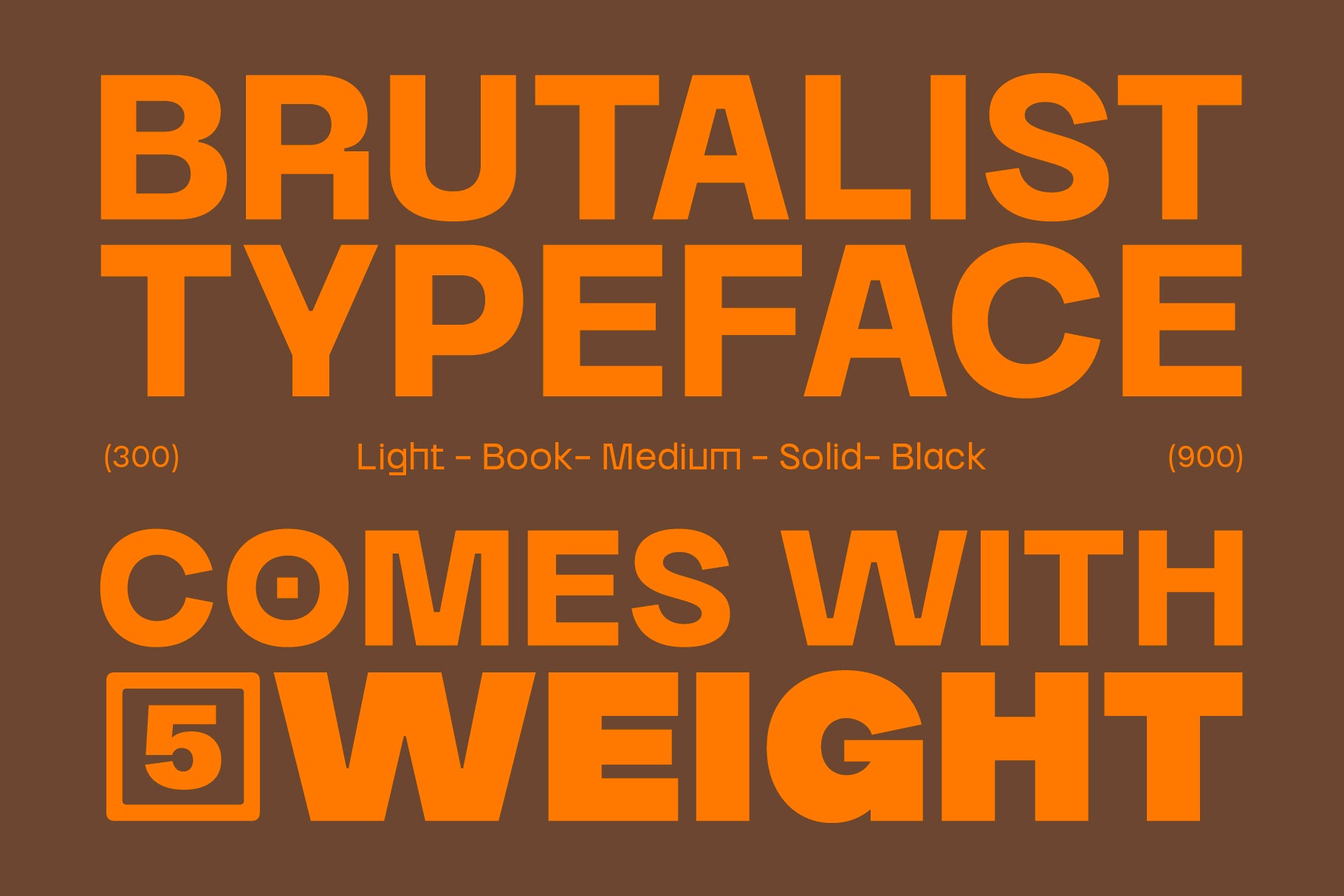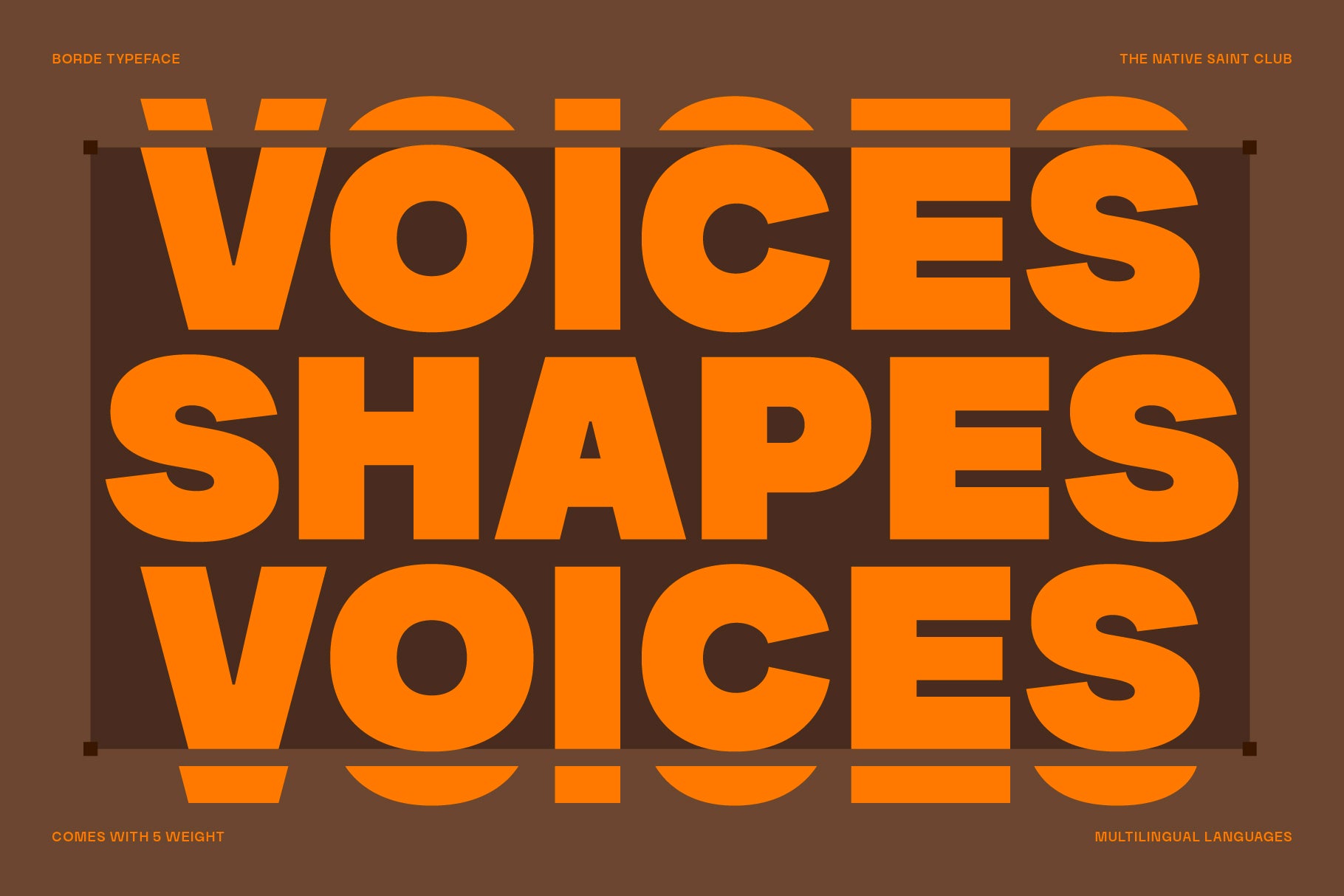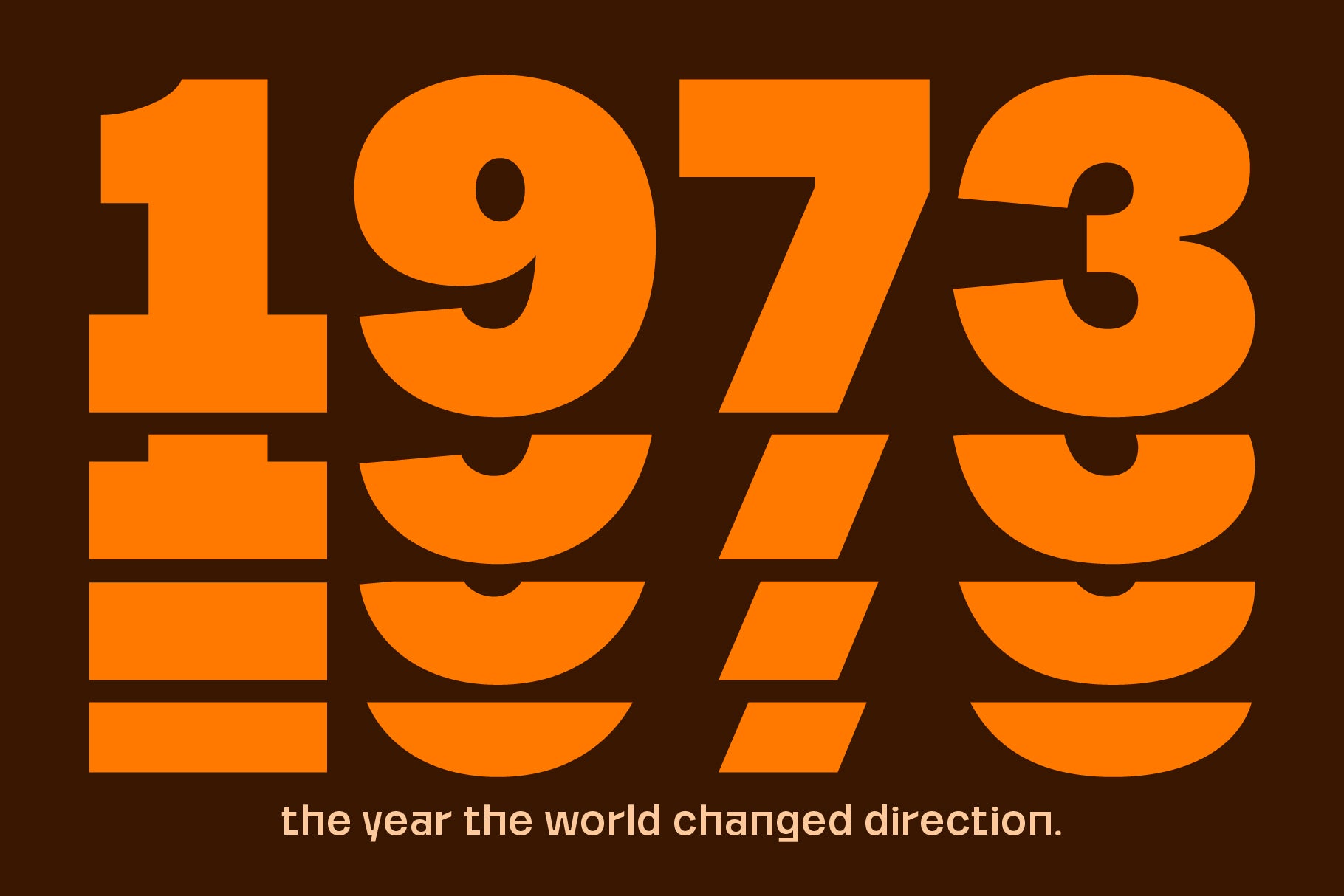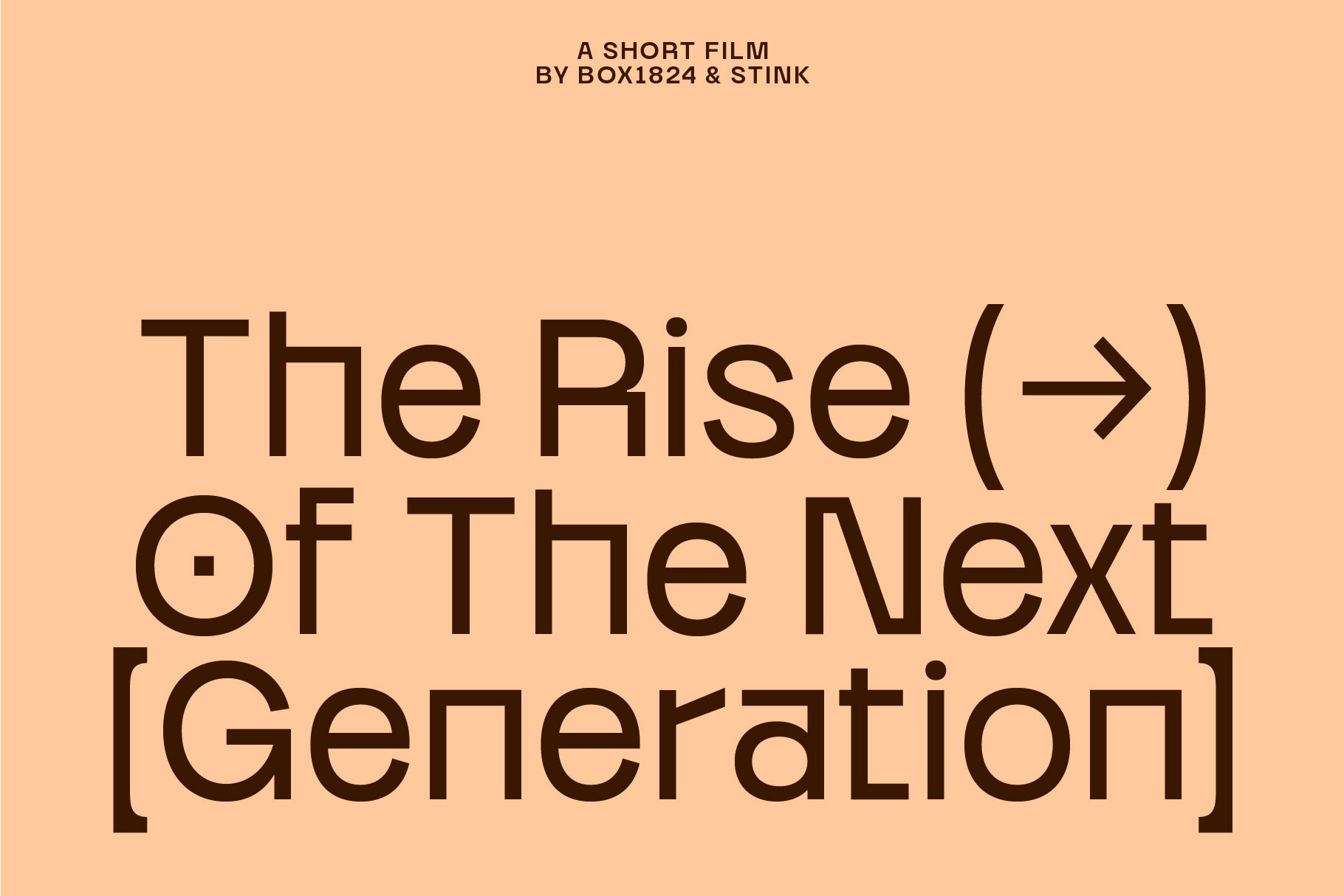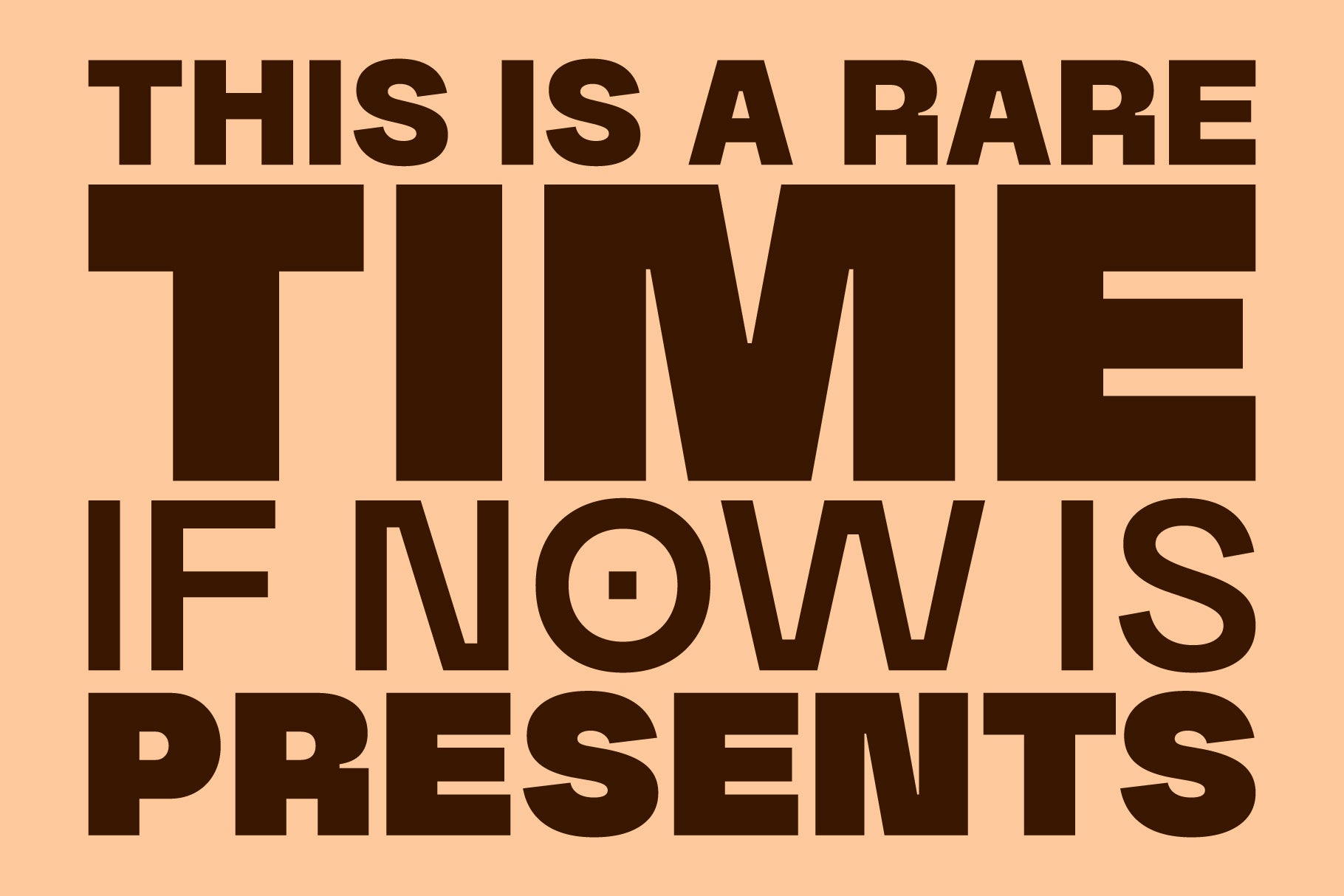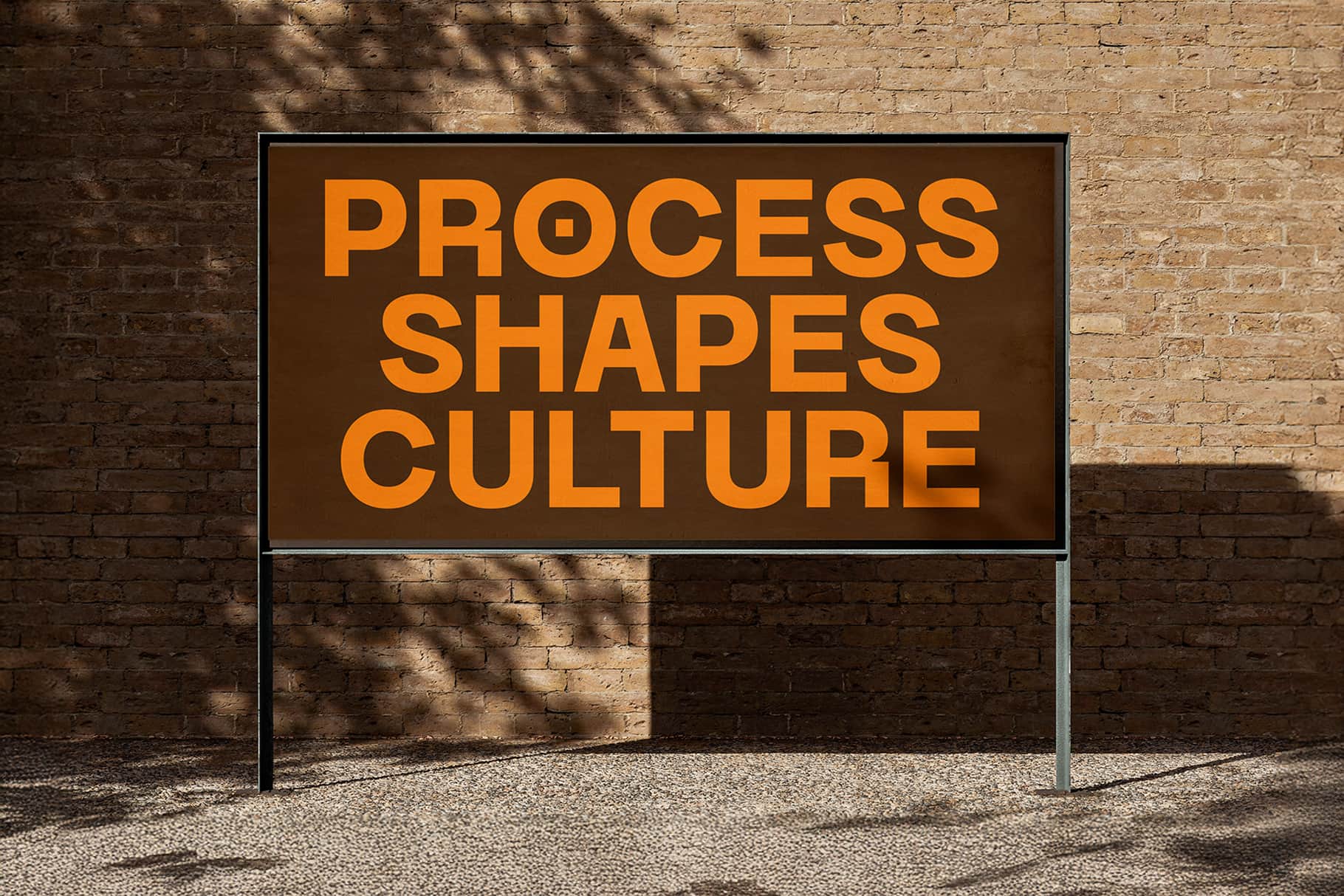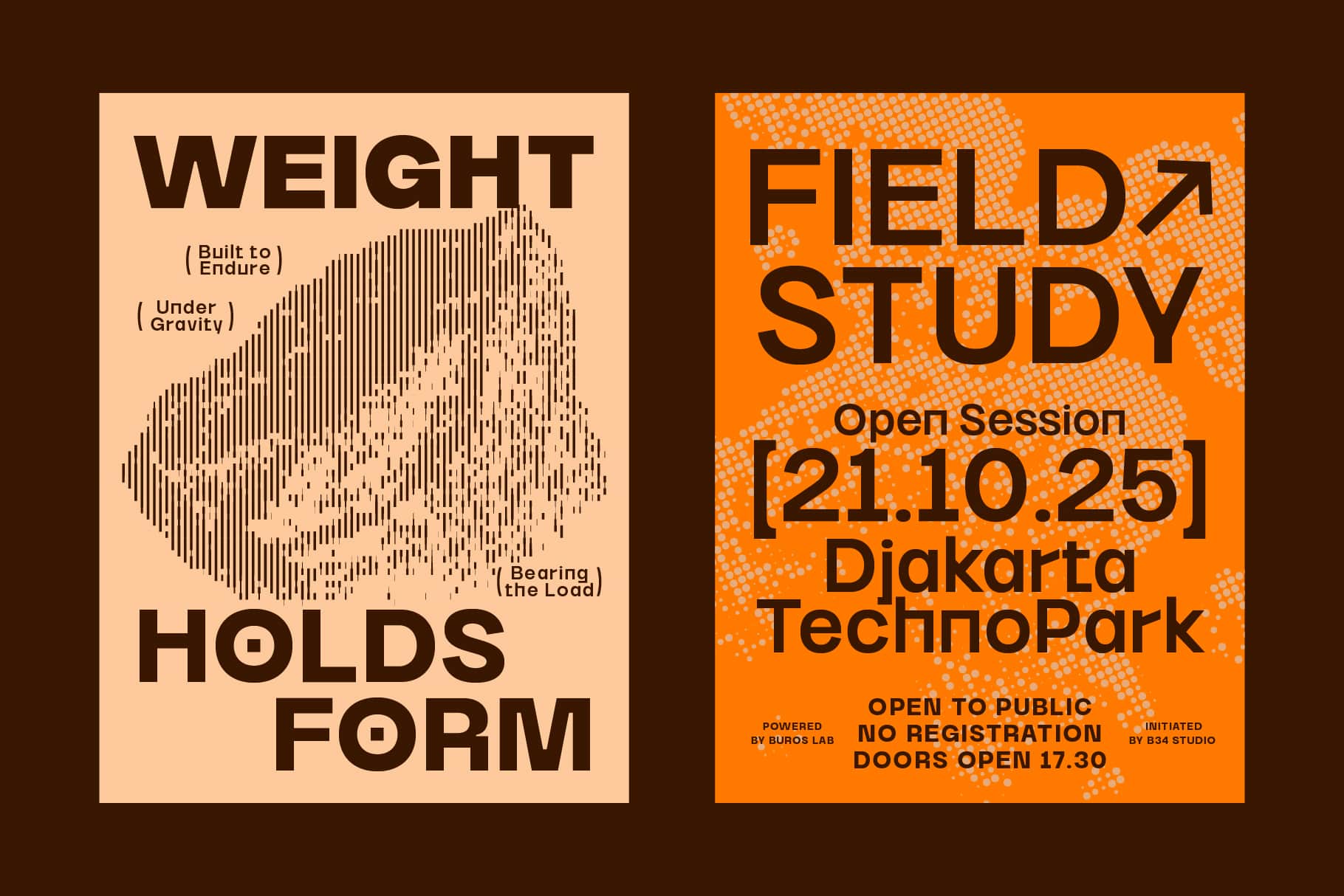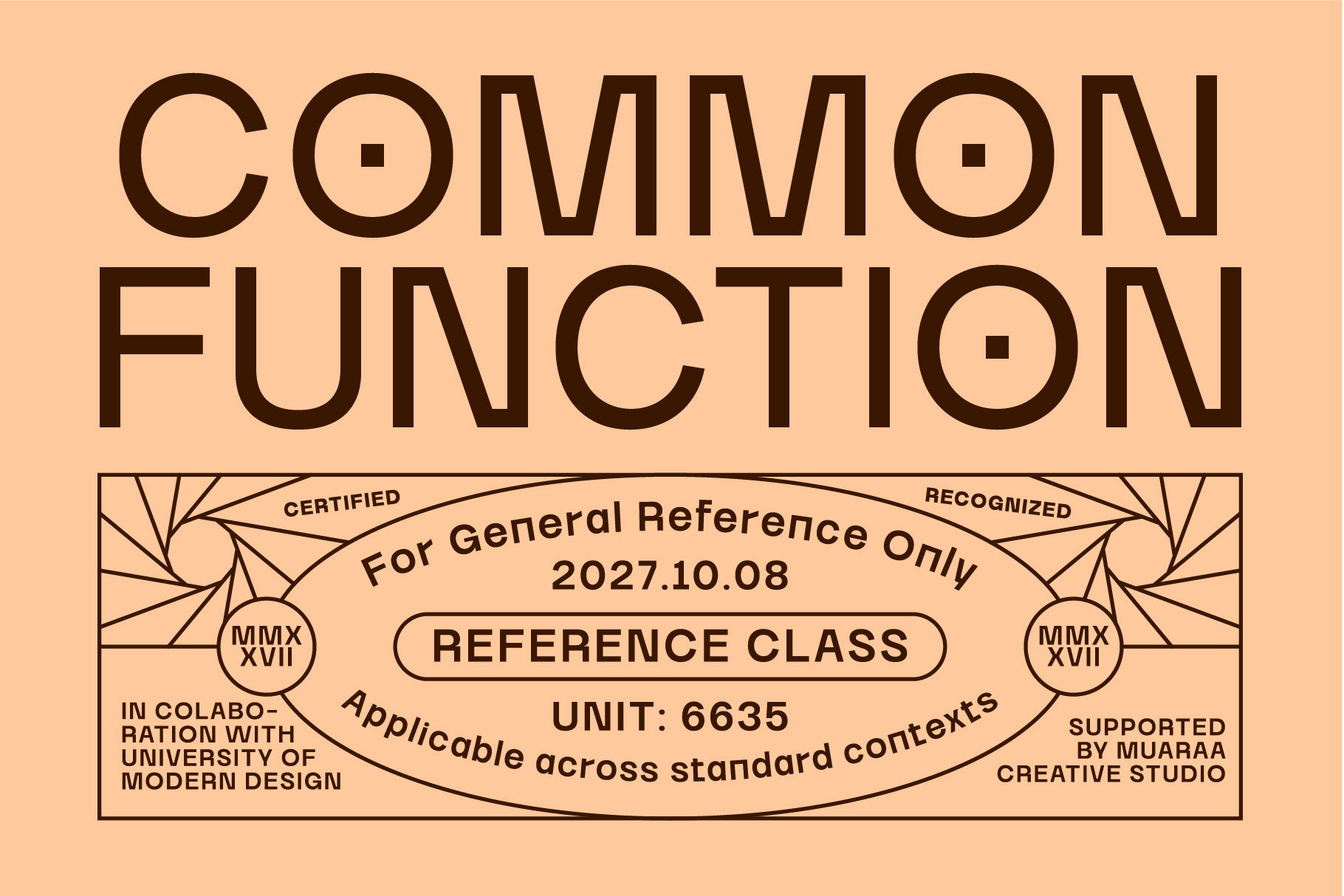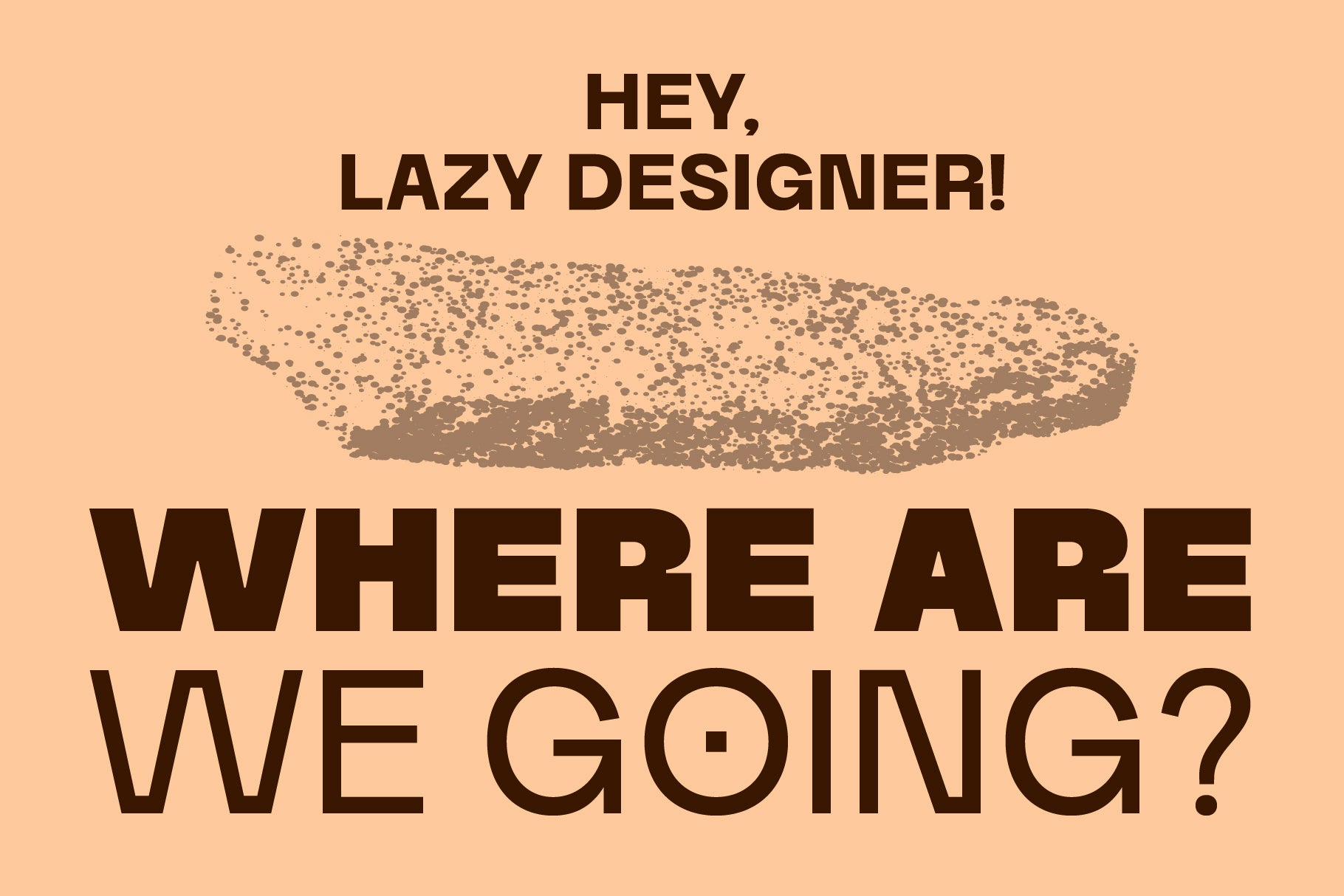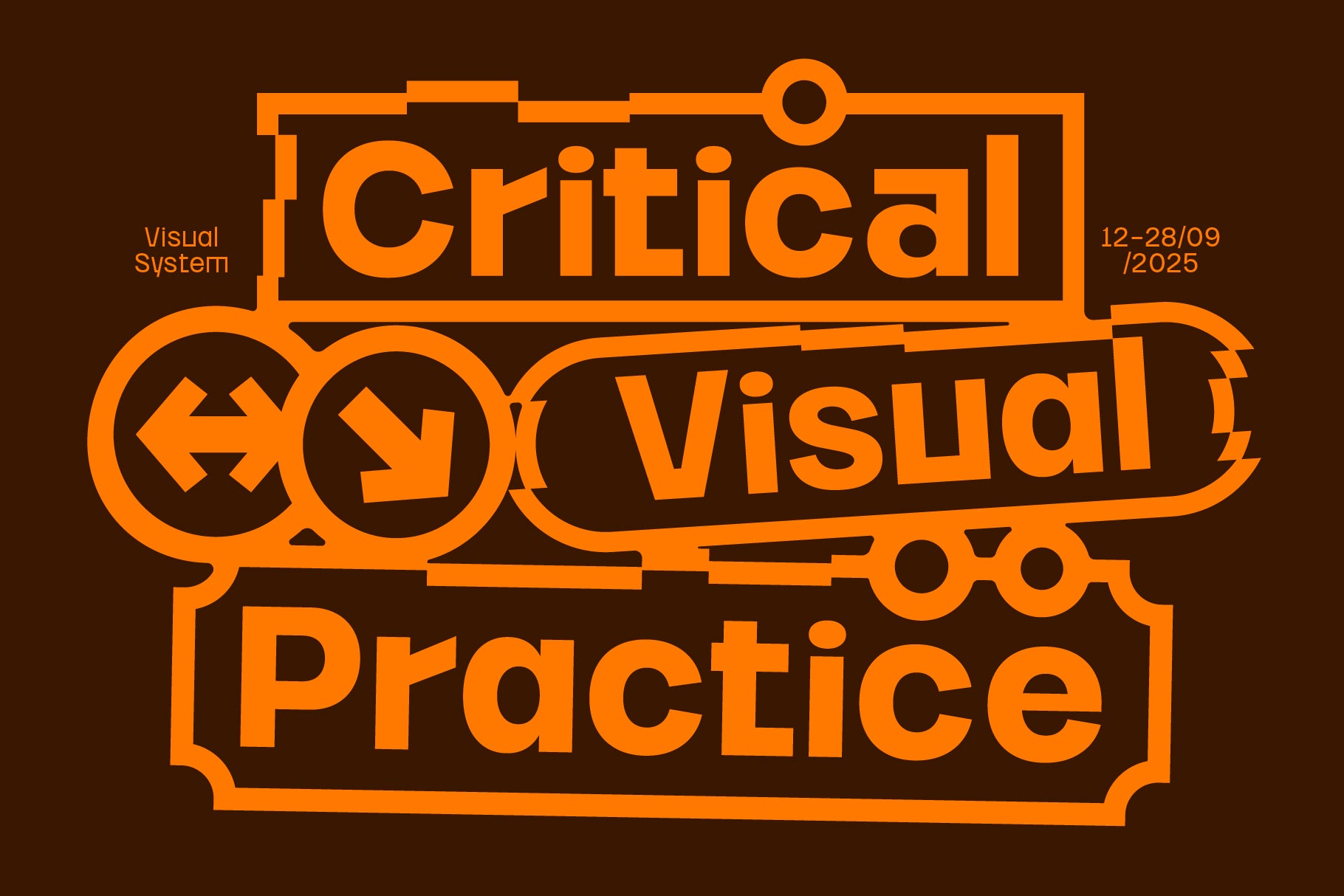
Borde Typeface TNSC
Borde is a bold brutalist sans serif built to make an immediate impact. Inspired by raw architectural forms, it channels the visual weight of concrete, steel, and exposed structure into a typeface that is as confrontational as it is legible — strong geometric shapes, confident proportions, and a modern tone that holds at any scale.
With 5 weights from Light to Black, multilingual support, numbers, and punctuation, Borde gives you the range to move between restraint and dominance within a single project. Perfect for headlines, branding, posters, editorial layouts, packaging, and digital design where presence is non-negotiable.
• 5 Styles (Light, Book, Medium, Solid, Black)
• Lowercase
• Diacritics
• Alternates
• Numerals (5 sets)
• Symbols
• Currency
• Mathematics
• Arrows